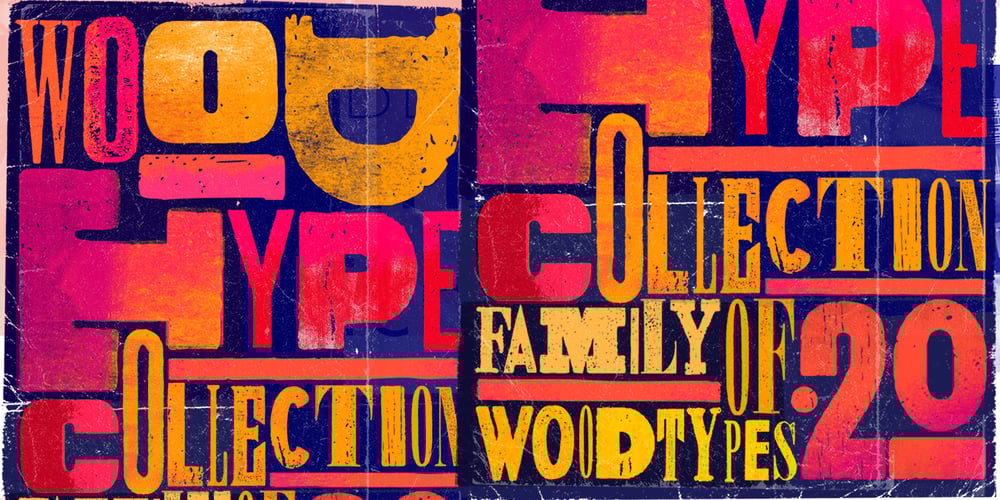
WOODTYPE Collection Font Family was designed by Mateusz Machalski and published by Machalski. WOODTYPE Collection contains 20 styles and family package options. WOOD TYPE COLLECTION from Mateusz Machalski is a set of wonderful, warm, and weathered hand made typefaces designed by Mateusz Machalski. The Inspiration for this collection comes from a wooden letter blocks and other old technologies used for printing. WTC supports 40 different languages and contains over 300 glyphs per style. The Family consists of 20 typefaces. ENJOY!